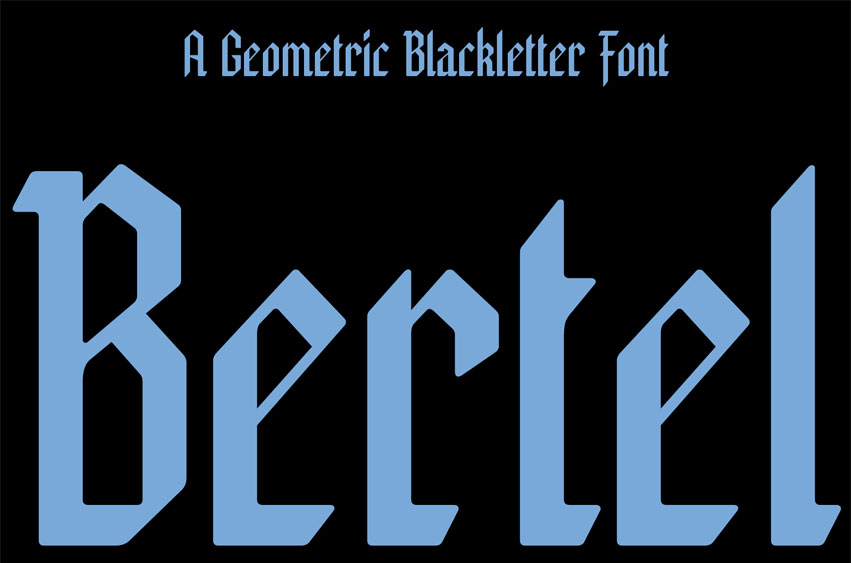
Bertel Font Make your designs unforgettable with Bertel, a font that blends modern style with a sharp, powerful edge. It’s the perfect choice for anyone wanting to create something truly unique that stands out from the crowd. Bertel is a special mix of two different styles: the clean, straight lines of modern geometric fonts and the classic, bold look of old-school gothic blackletter. The result is a font that looks futuristic and cool, built with sharp angles and strong lines that feel both confident and rebellious. This font is made for projects that need to make a big impact. It’s a great fit for an eye-catching brand logo. Use it for big headlines and posters to grab everyone’s attention.